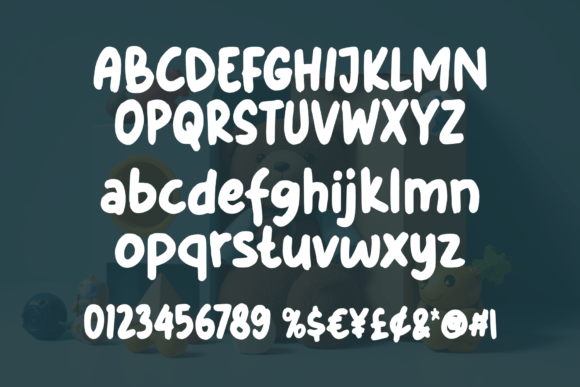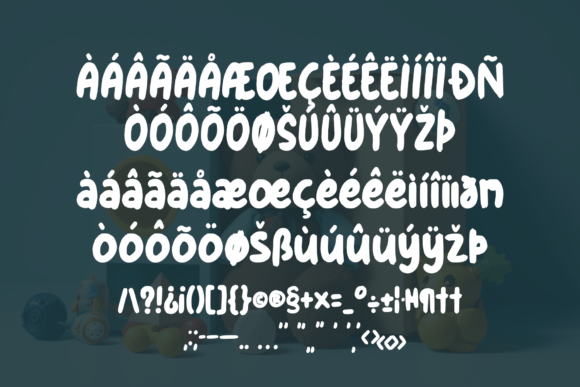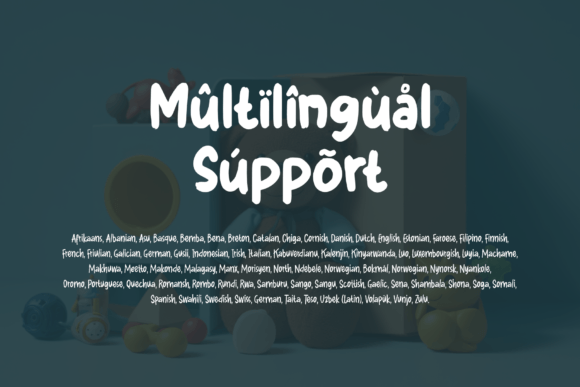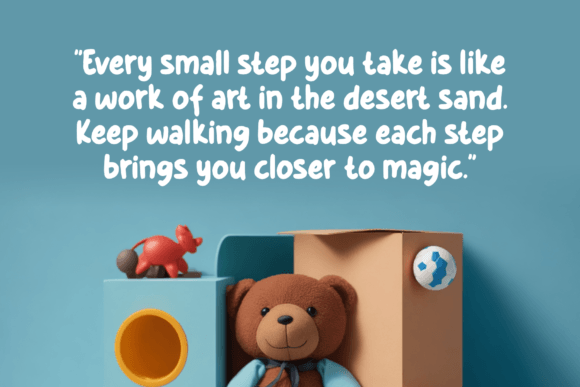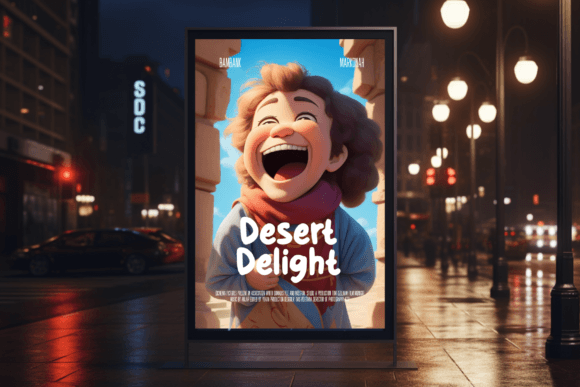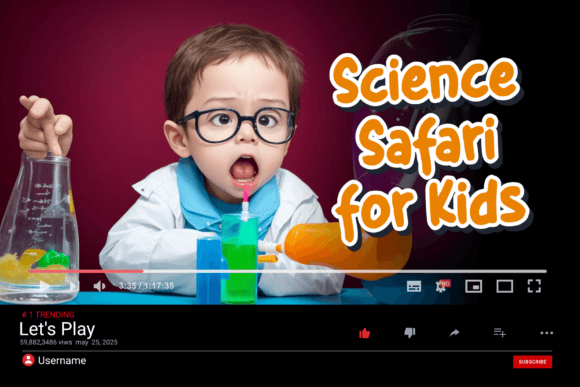
The Joy of Typography: Introducing Baby Kimo Font
Have you ever stared at a blank piece of paper, pen in hand, and wondered what kind of magic would unfold? As designers, we’ve all been there – waiting for that spark of creativity to strike. For me, it happened when I stumbled upon the charming “Baby Kimo” display font. Its adorable design and gentle curves immediately captured my heart, and I knew I had to share it with the world.
Designed to convey a sense of friendliness and approachability, the “Baby Kimo” font is the perfect choice for children’s content. Its rounded characters are not only visually appealing but also easily recognizable for young learners just starting to read. As designers, we can appreciate the value of a well-crafted typeface like “Baby Kimo” that can evoke emotions and create a lasting impression on our audience.
- Unique Characteristics: Hand-drawn, playful, and whimsical design with a mix of uppercase and lowercase letters, numbers, and punctuation
Baby Kimo Font Review
I recently had the chance to work with the Baby Kimo Font, and I have to say it’s a sweet addition to any design project. Here are some things that work well:
- ✨ The font has a unique, playful feel that’s perfect for children’s books, nursery decor, or any other project that needs a whimsical touch.
- ✨ The font is highly customizable, with a wide range of weights and styles to choose from, making it easy to achieve the perfect look for your design.
- ✨ The font is also very legible, even at small font sizes, making it a great choice for projects where text will be displayed in a small format.
- ⚠️ The font may not be the best choice for formal or professional projects, as its playful nature may come across as unprofessional.
- ⚠️ The font’s unique feel may also make it difficult to pair with other fonts, so it’s best to use it as a standalone font or with fonts that have a similar feel.
Overall, I think the Baby Kimo Font is a great addition to any designer’s toolkit. While it may have some limitations, its unique feel and high level of customization make it a great choice for projects that need a playful touch. Just be sure to use it wisely and consider your project’s tone and audience before making a final decision.
For the best results, use the Baby Kimo Font for titles, headings, and emphasis. It’s ideal for creating a playful and whimsical atmosphere in your designs. Experiment with different font sizes and colors to create visual interest.
The Baby Kimo Font is perfect for:
- Children’s book covers and illustrations
- Playful website headers and footers